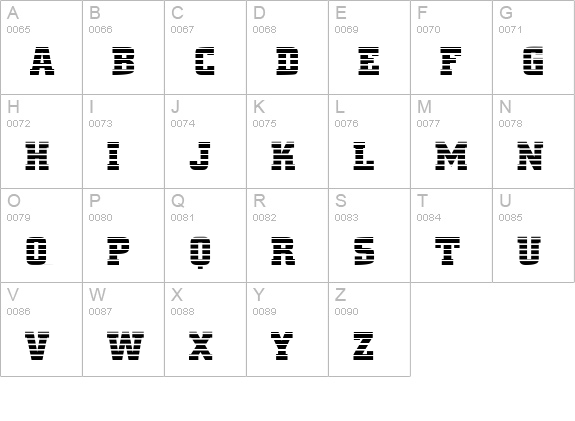
BorghsStriped Normal Font Details
BorghsStriped Normal is the standard, neutral variant in the BorghsStriped typeface family \xE2\x80\x94 well suited to general body text, paragraphs, and standard typographic work.
BorghsStriped Normal font is a modern and stylish typeface that adds a touch of sophistication to any design project. Its unique striped pattern gives it a distinctive look that is perfect for a wide range of applications, from logos to branding to packaging. This versatile font is available for free download at FontsMarket.com, making it accessible to anyone looking to elevate their designs with a touch of elegance and creativity. Whether you're working on a personal project or a client's campaign, BorghsStriped Normal font is sure to make a lasting impression.